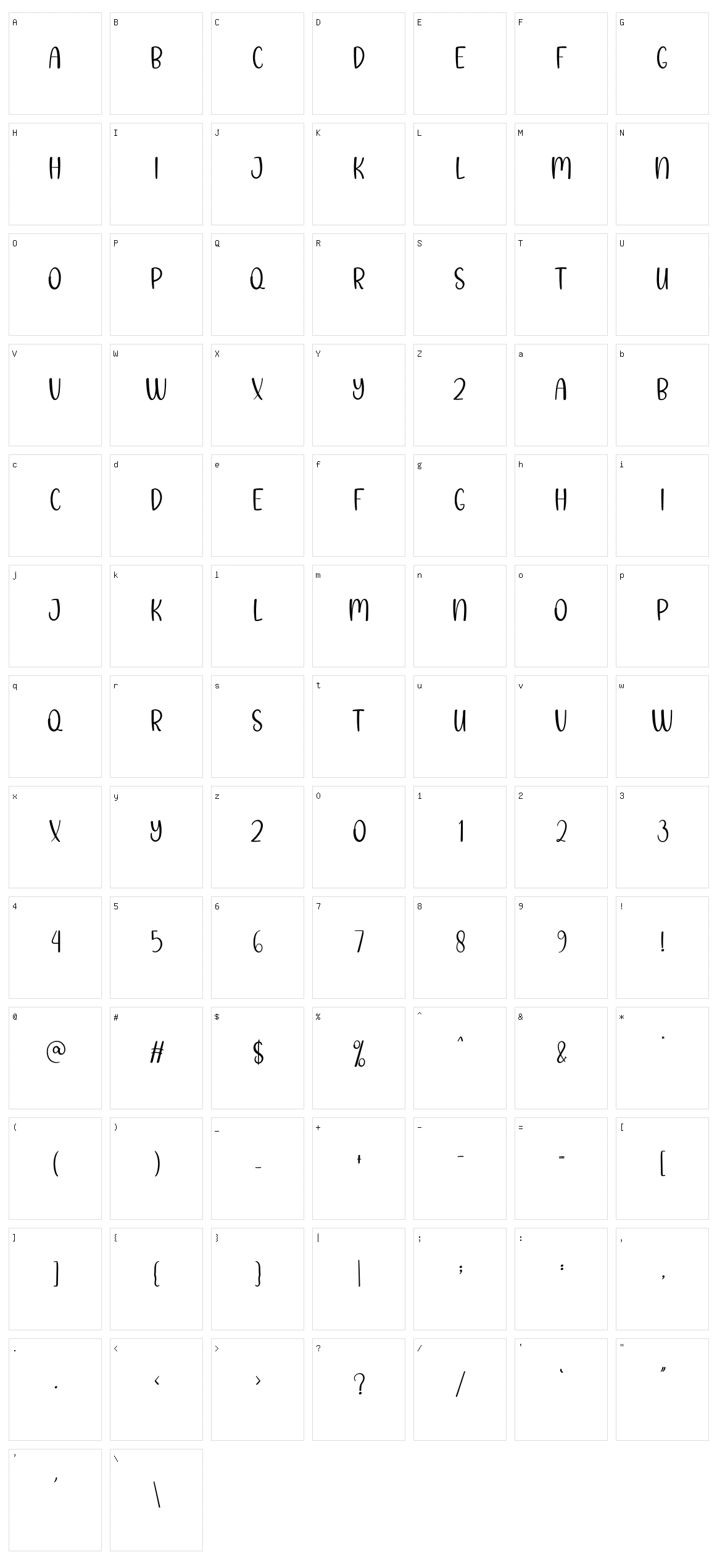
The free font Palm Sugar is carefully designed by Scratchones, showcasing a thoughtful balance of creativity and usability and falls under the Script font style. When you download the ZIP file, it contains only 203.08 KB of font files, making it lightweight and quick to download. Please review the license details below to understand permitted usage and distribution rights. If license information is not available, we recommend using this font for personal projects only or contacting the author directly for commercial usage permissions.